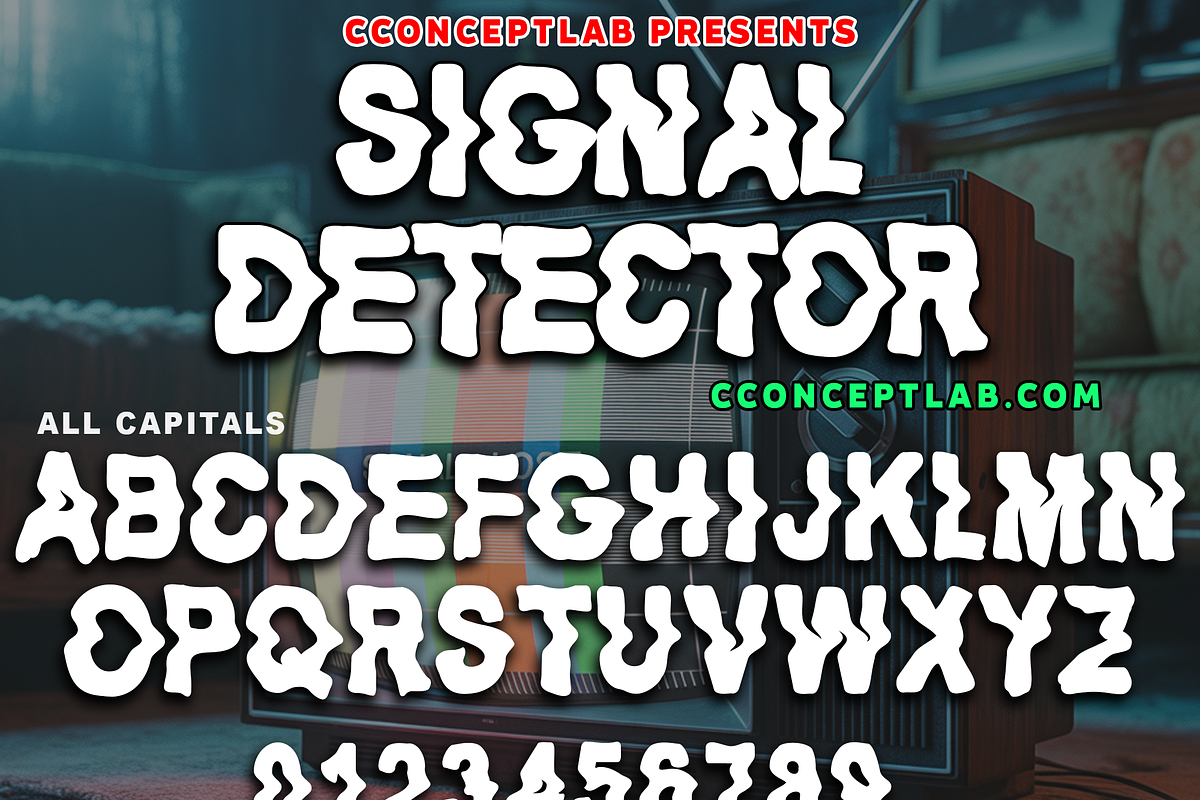
SIGNAL DETECTOR
Introducing
SIGNAL DETECTOR
- Bold distorted inspired font perfect on your school projects, covers, etc.
- Lifestyle street theme font for branding, website, mobile app etc.
- Available in Uppercase, Numbers, Punctuations and Symbols.